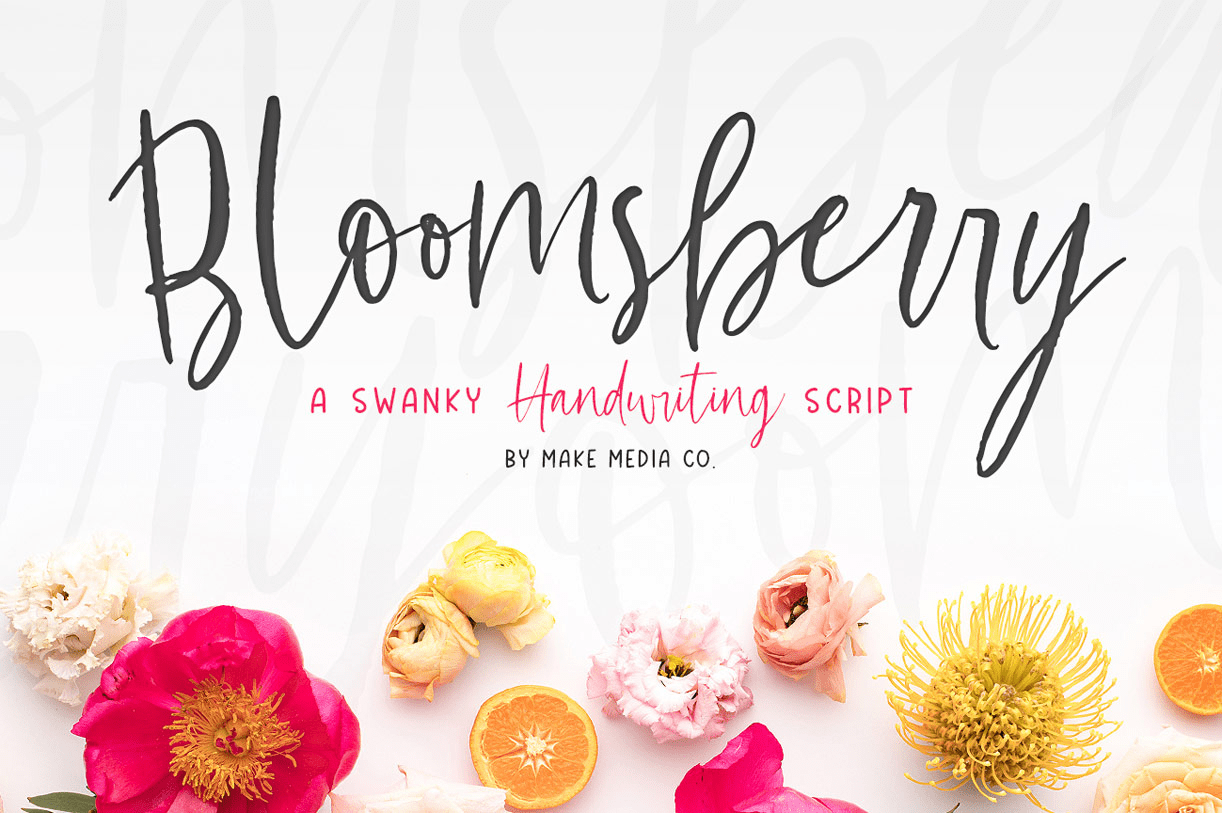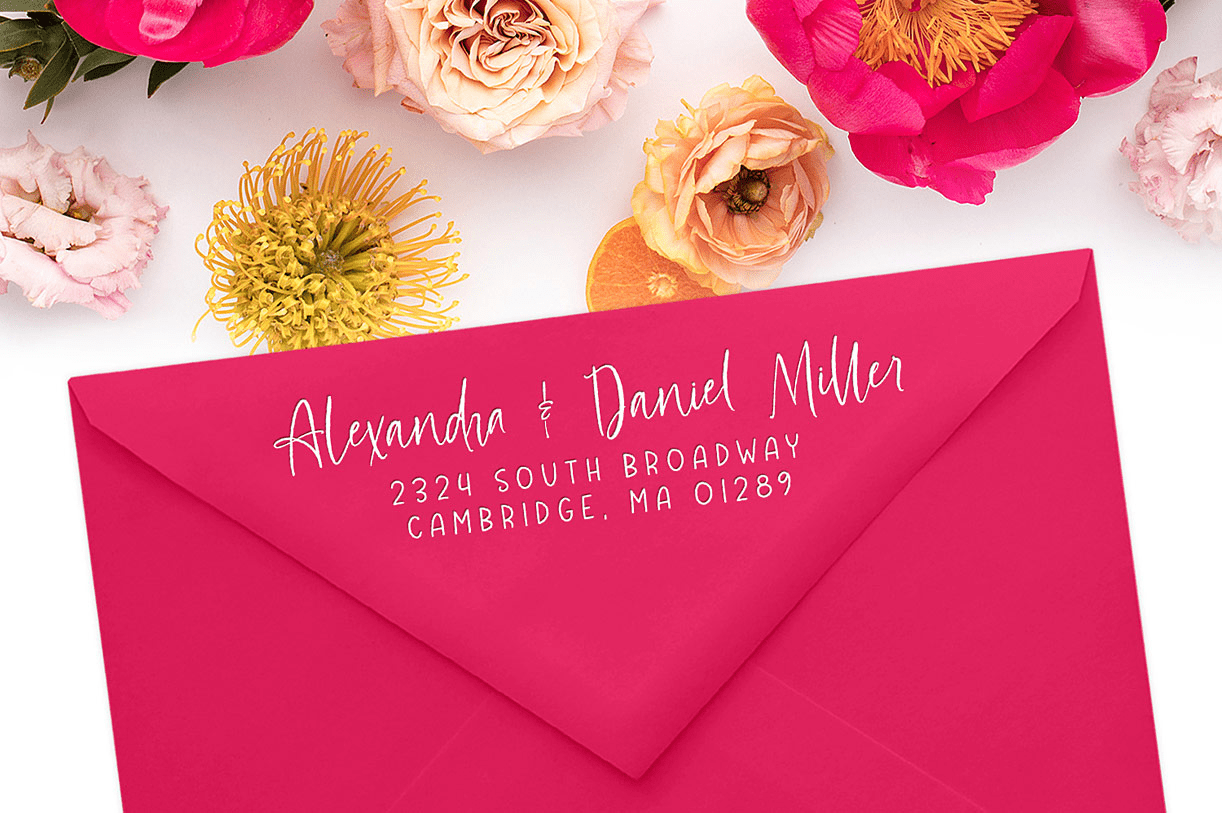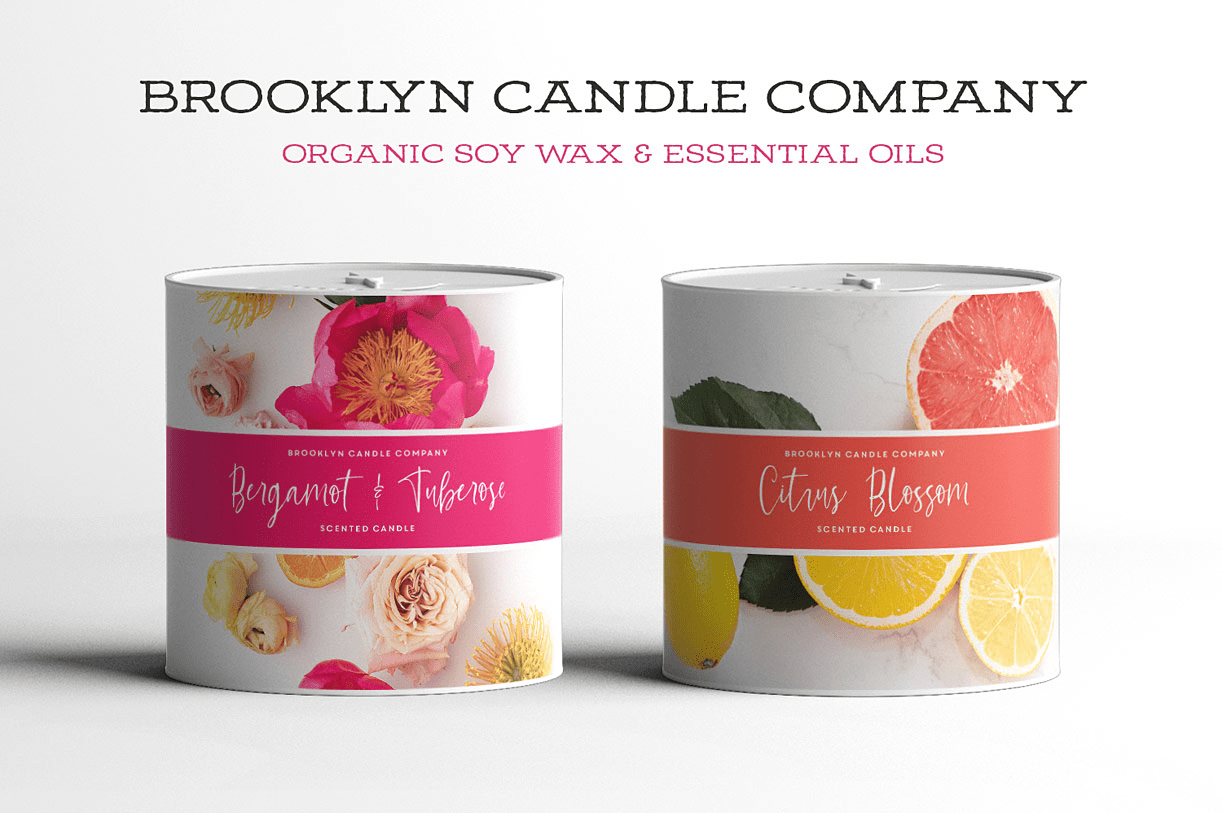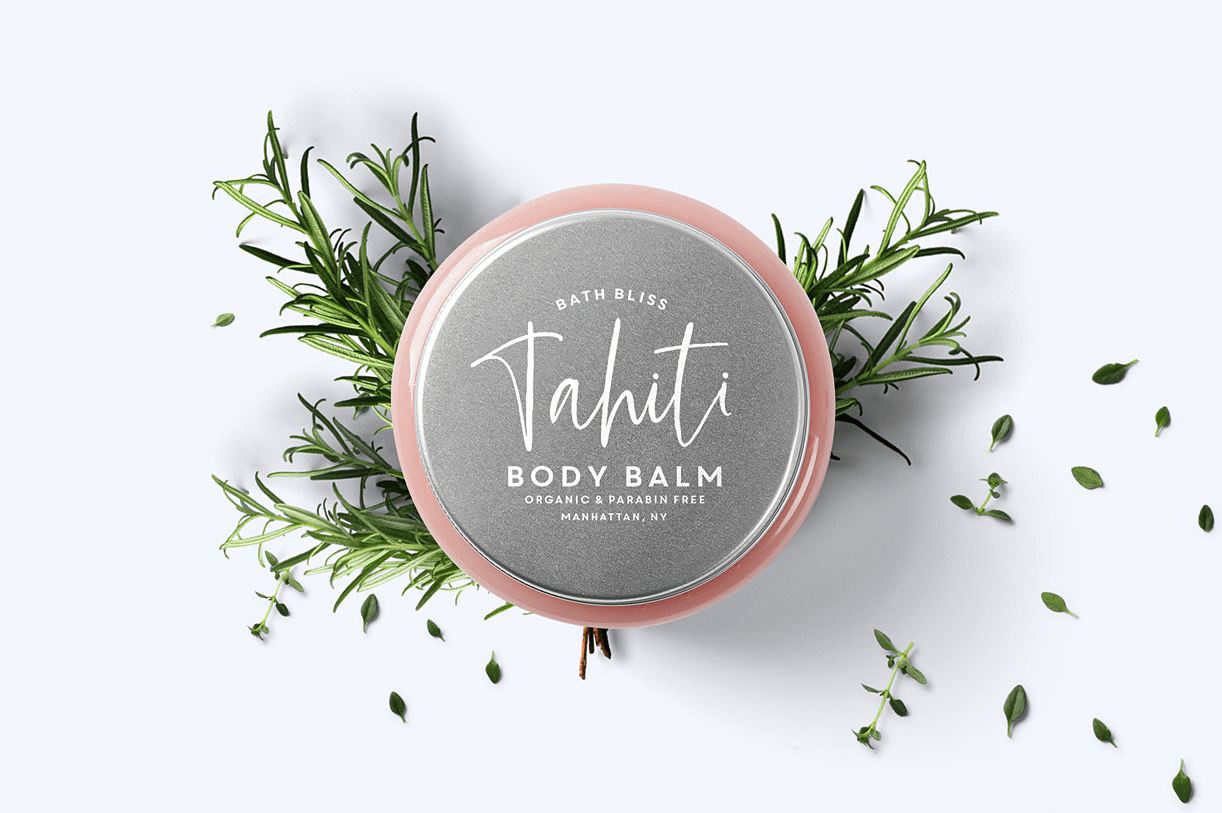
Meet Bloomsberry! A swanky, yet sweet handwriting font and its adorable sans-serif sidekick (in three weights). Bloomsberry was designed to fit everything from logos, to packaging, to invitation design. And looks especially awesome as headlines, and signatures.…